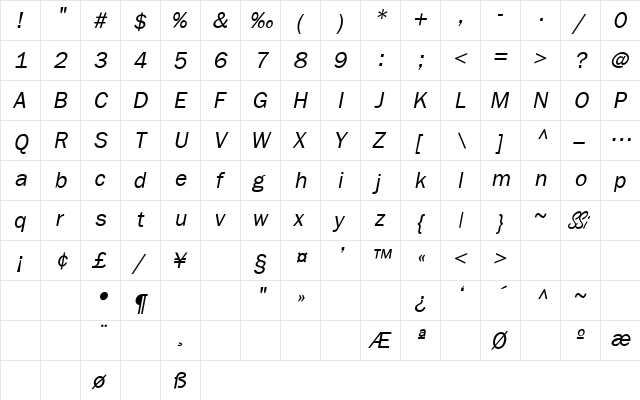
Franklin Gothic Light SSi Light Italic Font Preview
Design Context for Franklin Gothic Light SSi Typeface
Franklin Gothic Light SSi takes a clean, functional approach — its unadorned letterforms prioritise legibility and work reliably across screen and print environments. Its italic angle brings a sense of urgency and motion to the letterforms. Its slender proportions lend an understated elegance to any composition.
A natural fit for high-end product packaging, luxury brand identities, and refined web typography.
Font Pairing: Pair Franklin Gothic Light SSi with a medium or bold serif for headlines — the weight contrast creates an elegant, high-end feel.
Pro Tip: Use Franklin Gothic Light SSi with generous tracking and line-height for the most luxurious effect — light sans-serifs reward spacious, considered layouts.